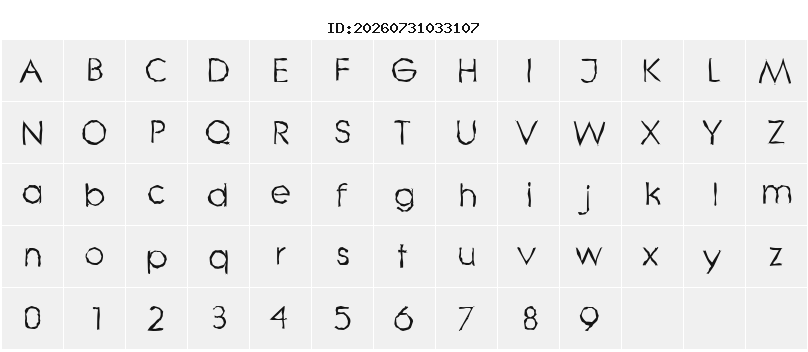
• Font Name: LiteraRandom
• Designer: SoftMaker Software GmbH
About LiteraRandom.ttf
LiteraRandom.ttf is a modern, elegant sans-serif font designed for ultimate readability and visual harmony. Perfect for branding, headlines, web design, and print materials.